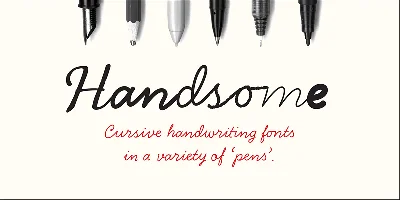
Handsome Pro Font
Handsome Pro Font is a beautifully crafted script typeface that mimics the flow and flair of genuine handwritten calligraphy. With its expressive curves, elegant strokes, and sophisticated style, this font is a perfect match for wedding invitations, luxury branding, elegant packaging, and personal signatures. It brings a human, heartfelt touch to any design.
Handsome Pro stands out with its graceful swashes and ligatures, offering a sense of personality and refinement. Each letter connects seamlessly, creating fluid lines that feel both artistic and intentional. Whether you’re designing for romantic occasions or upscale marketing materials, this font adds charm and distinction to your visuals.